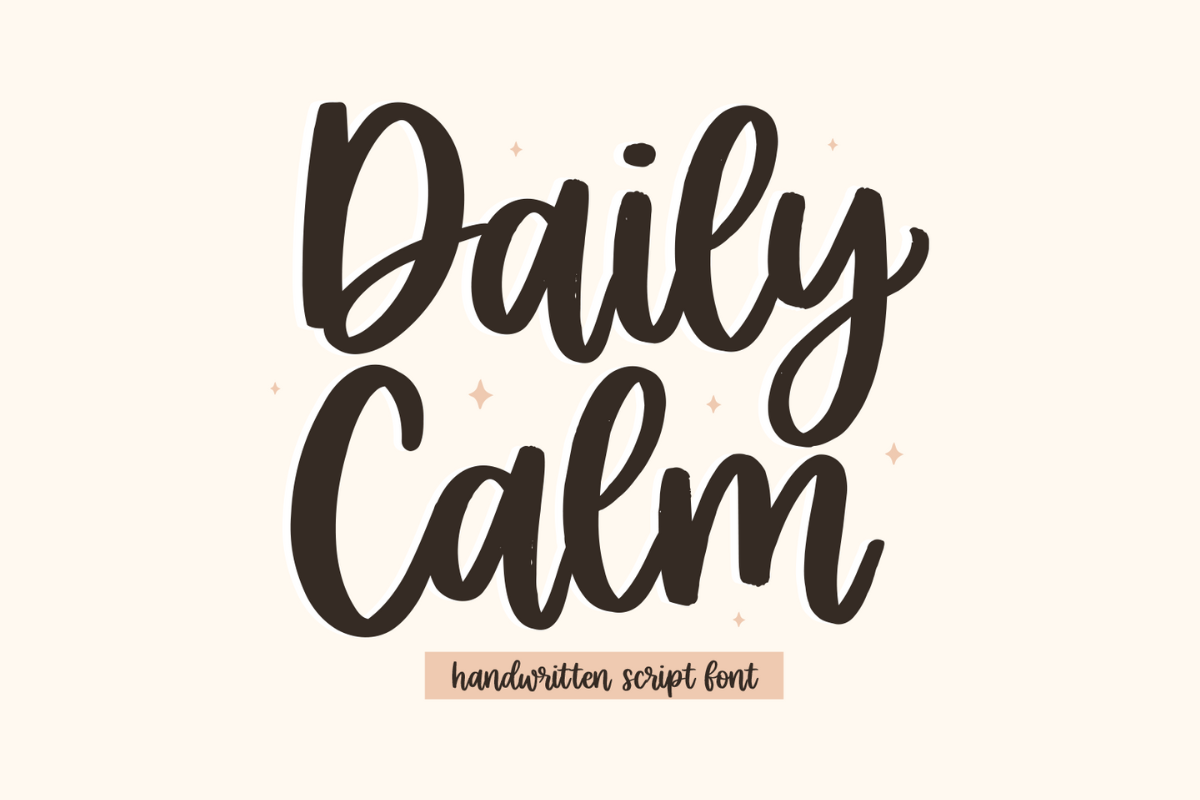
Daily Calm - Handwritten Script Font
Daily Calm is a modern, stylish, and flowing handwritten script font. It has beautiful and well-balanced characters and as a result, it matches a wide pool of designs. It is the best choice for creating eye-catching logos, branding, and quotes. Add it to your most creative ideas, and notice how it makes them come alive!